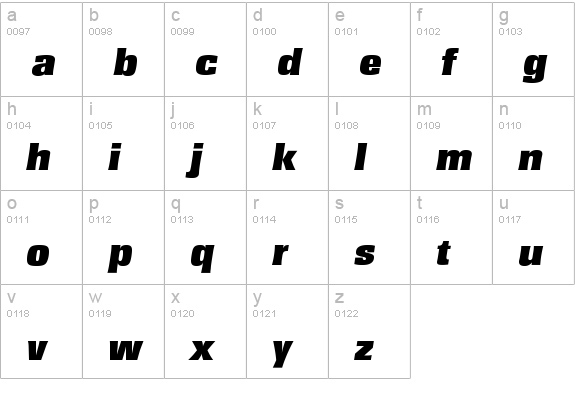
Introducing Rochester-HeavyIta, a stunning and elegant font that exudes sophistication and charm. This font strikes the perfect balance between classic and contemporary styles, making it versatile and suitable for a wide range of design projects. Rochester-HeavyIta features bold and italicized characters that add a touch of flair and personality to any text. Its smooth lines and intricate details make it a standout choice for headlines, logos, invitations, and more. Best of all, Rochester-HeavyIta is available for free download at FontsMarket.com. Don't miss out on this opportunity to enhance your designs with this exquisite font. Download Rochester-HeavyIta today and let your creativity shine!